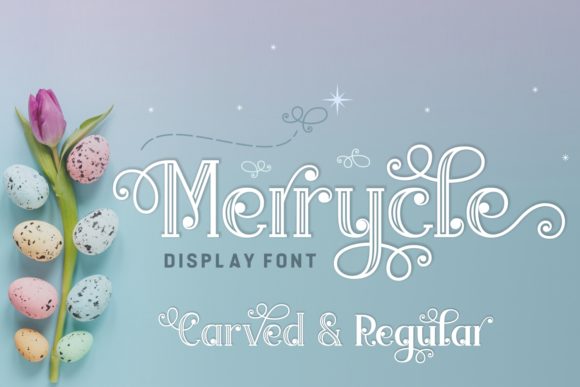
Embrace Merrycle Font, the enchanting display typeface adorned with magical charm, crafted by the skilled hands of Jasm (7NTypes). Prepare to weave spells of visual delight, as Merrycle gracefully dances across your designs, leaving a trail of captivating allure. With its two mesmerizing variations, Regular and Carved, this font grants you the power to evoke emotions, enchant imaginations, and stir hearts.
Engulf your projects with the mystical aura of Merrycle's Regular style, where delicate strokes and captivating curves intertwine, captivating audiences with its enchanting elegance. Its graceful lines, reminiscent of whispered secrets and moonlit walks, add a layer of ethereal beauty to your creations, making each word a whispered incantation.
As you explore the depths of Merrycle's Carved variation, discover a realm where imagination takes form. The intricately etched lines, reminiscent of ancient runes and forgotten tales, add a touch of mystery and intrigue to your designs. Each letter emerges as a captivating enigma, inviting viewers to embark on a journey of exploration and discovery.
Let Merrycle be your muse as you craft enchanting designs that speak to the soul. Its versatility allows you to conjure captivating logos, alluring posters, enchanting invitations, and spellbinding social media graphics. Unleash your creativity and weave tales of magic and wonder, captivating your audience with the enchanting allure of Merrycle.